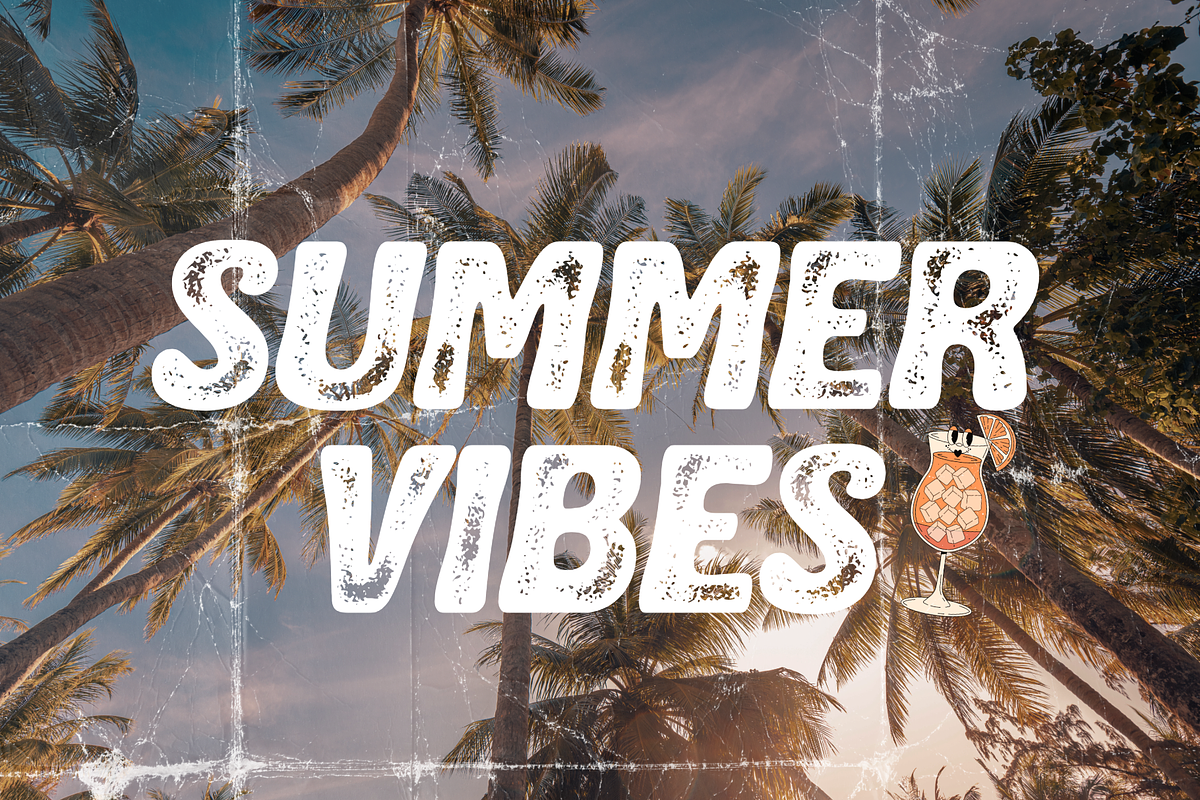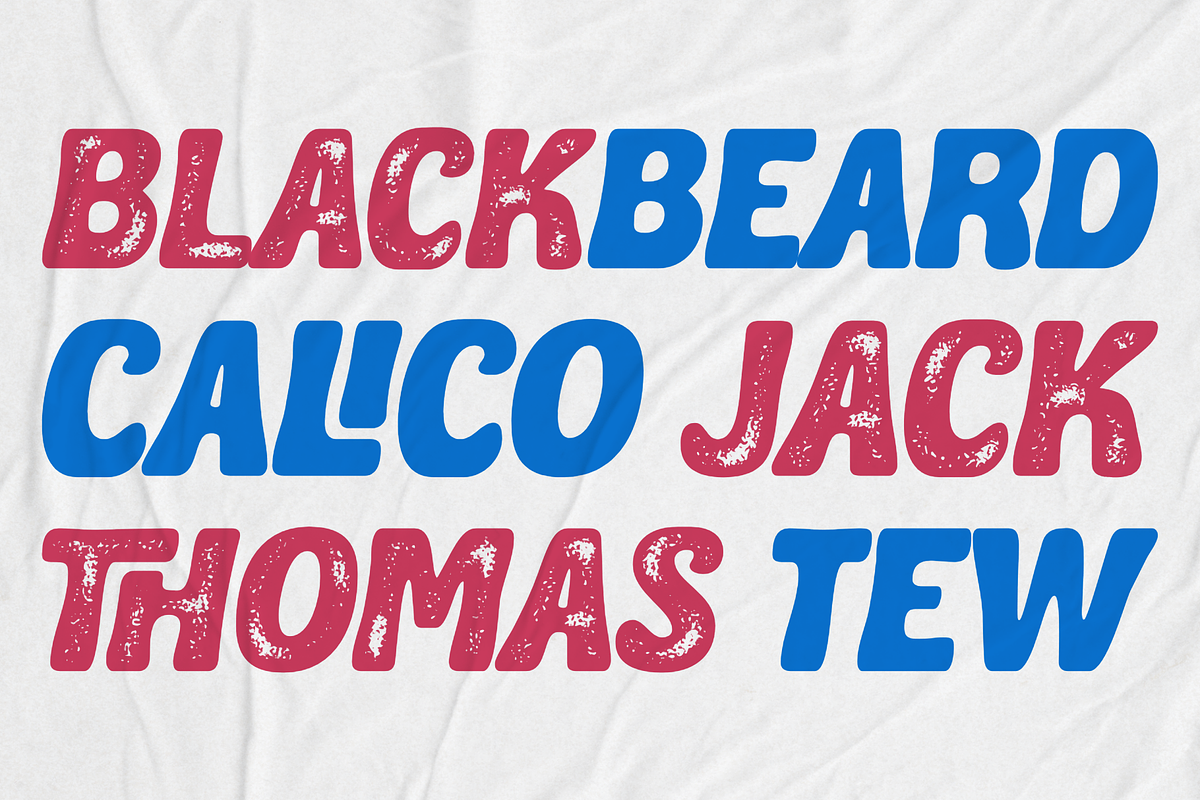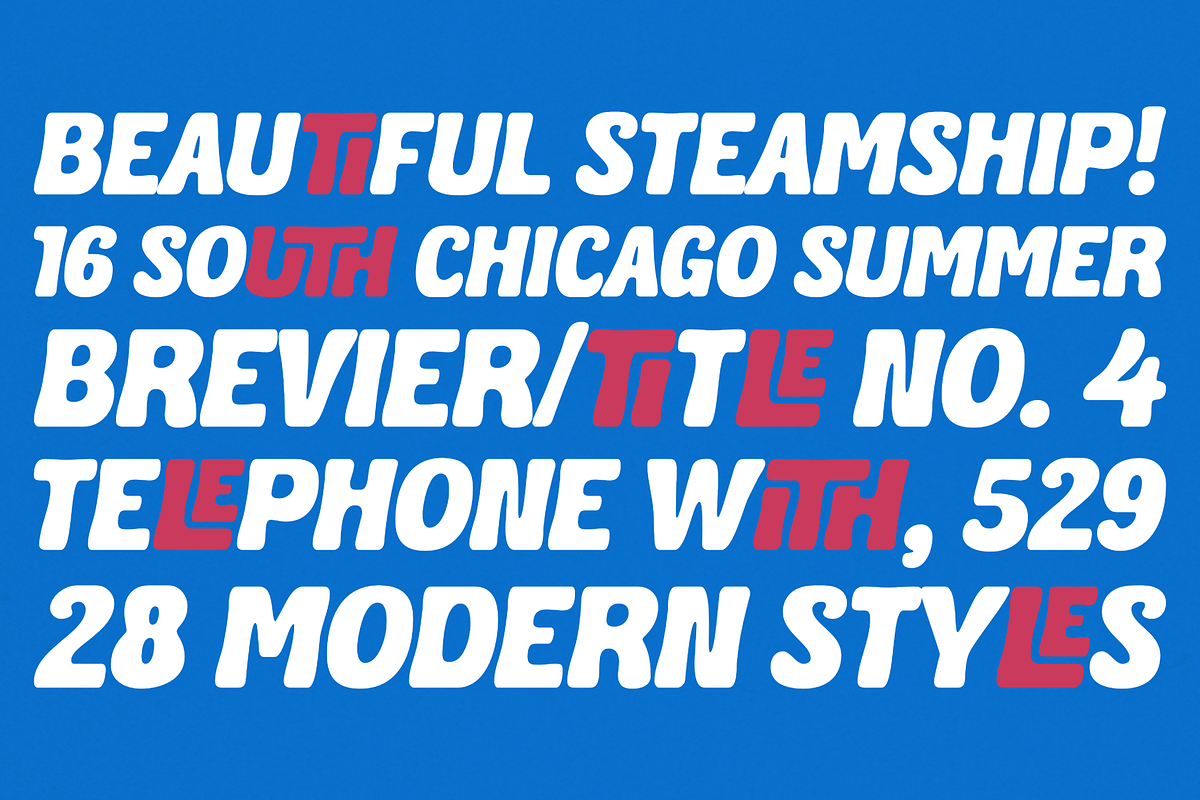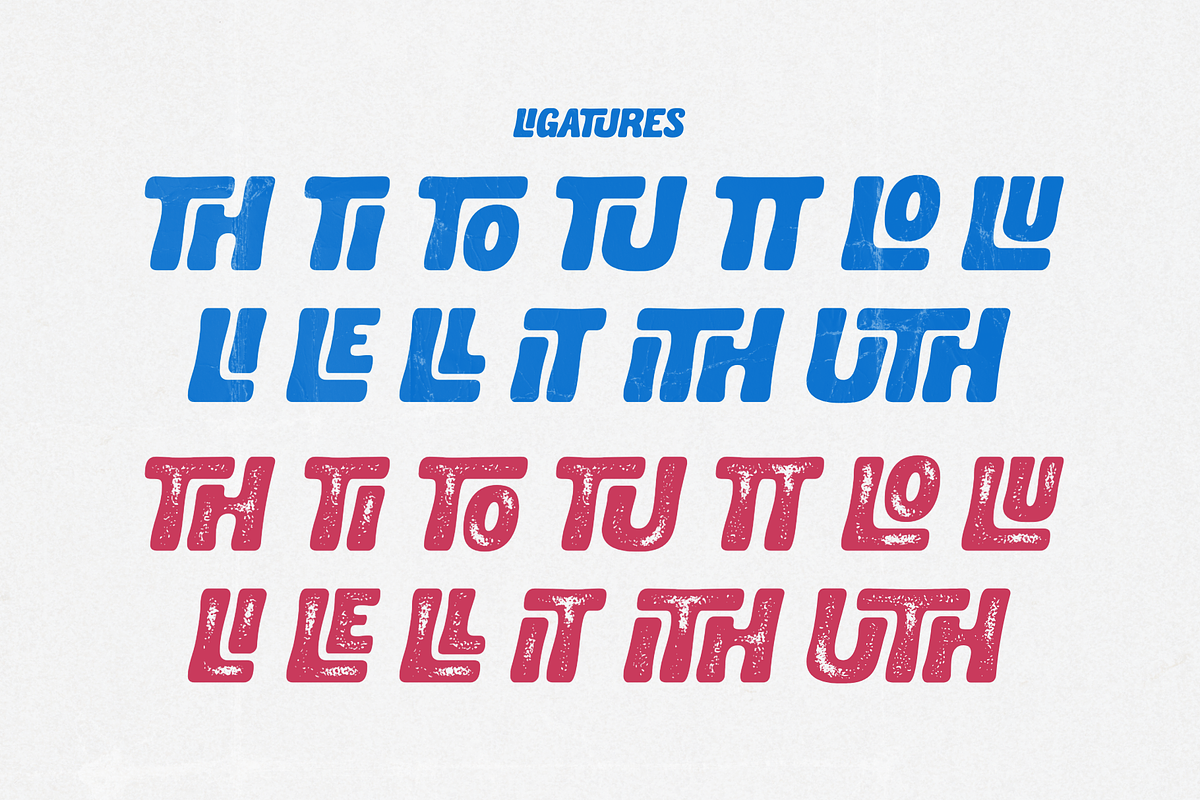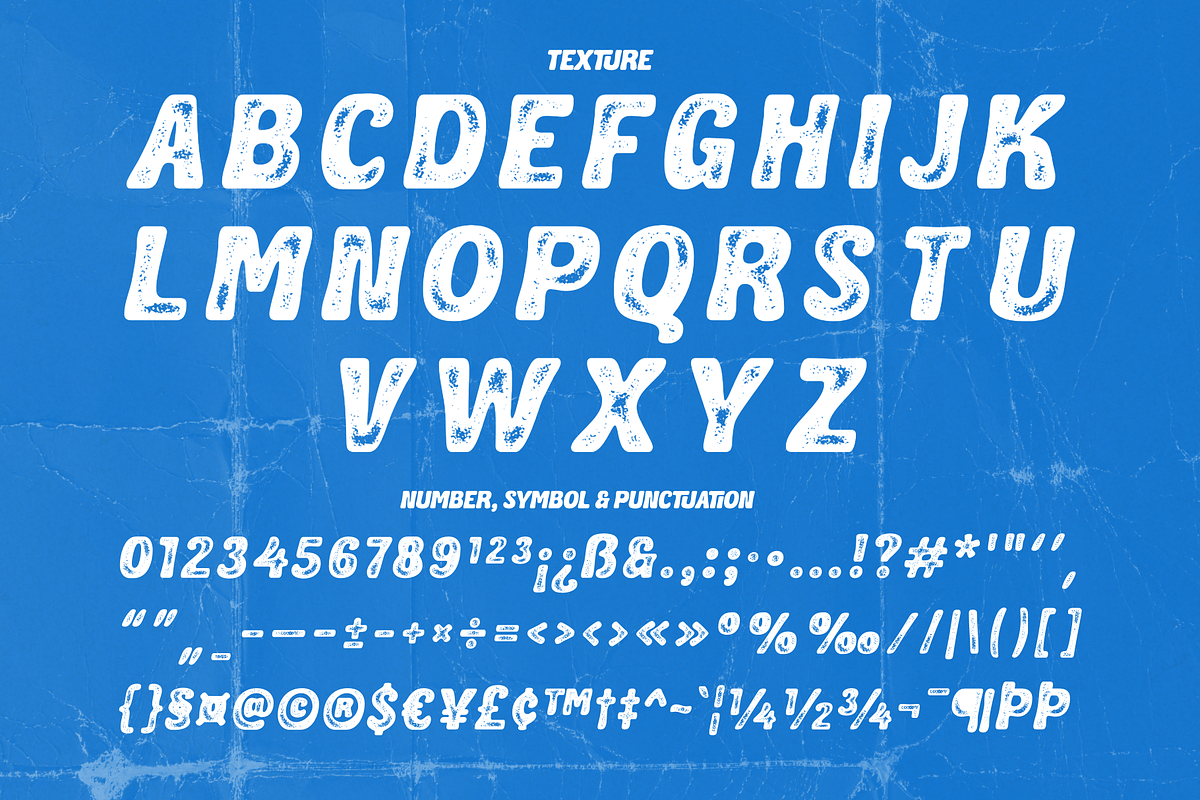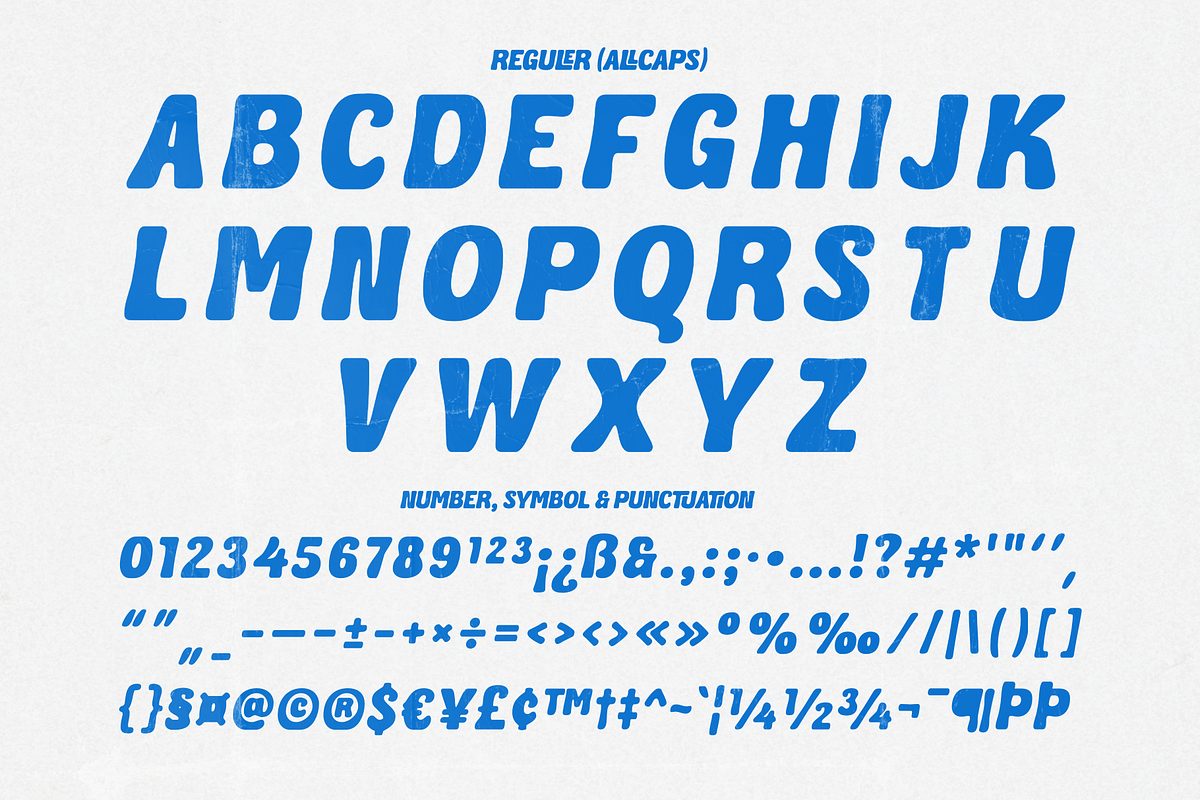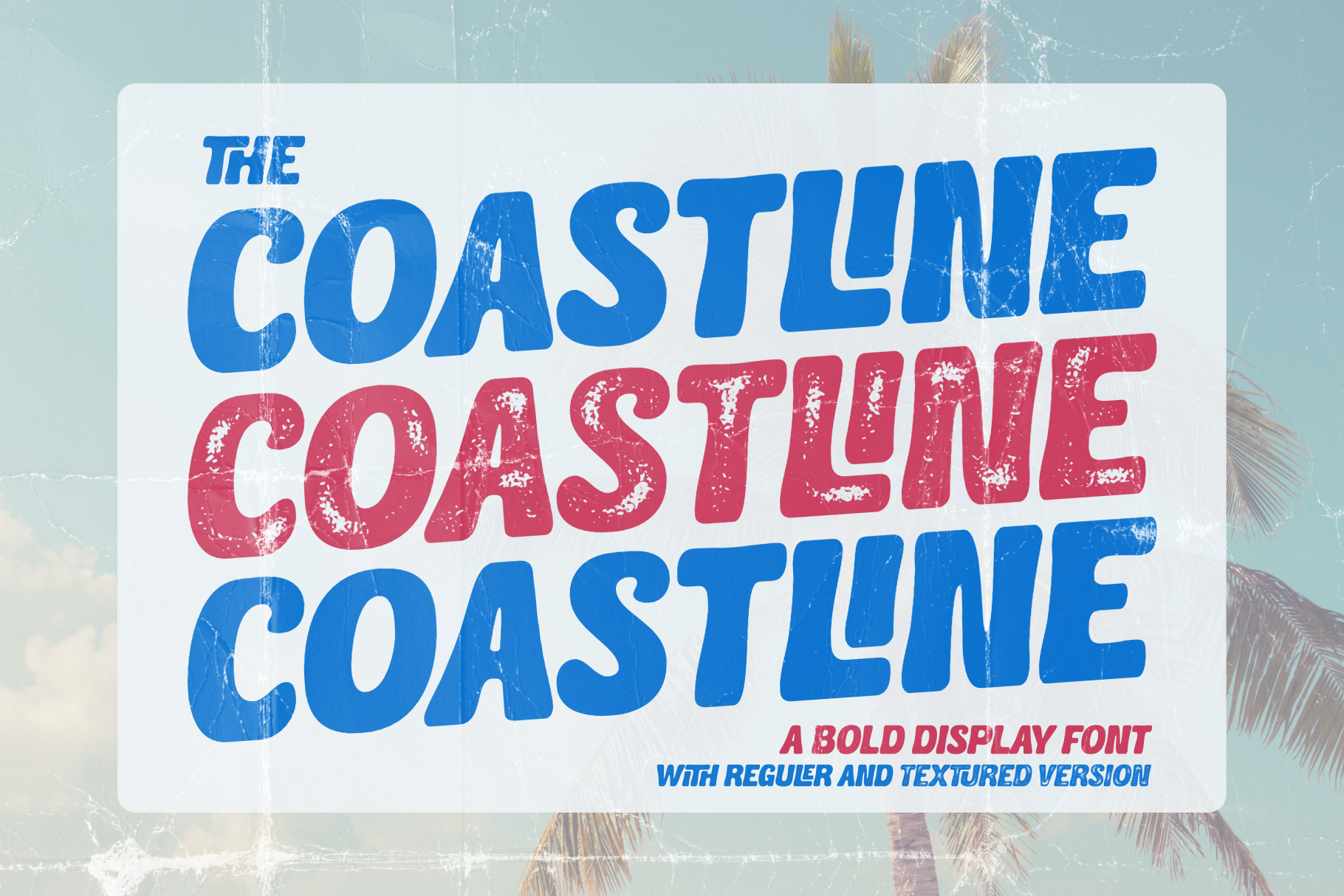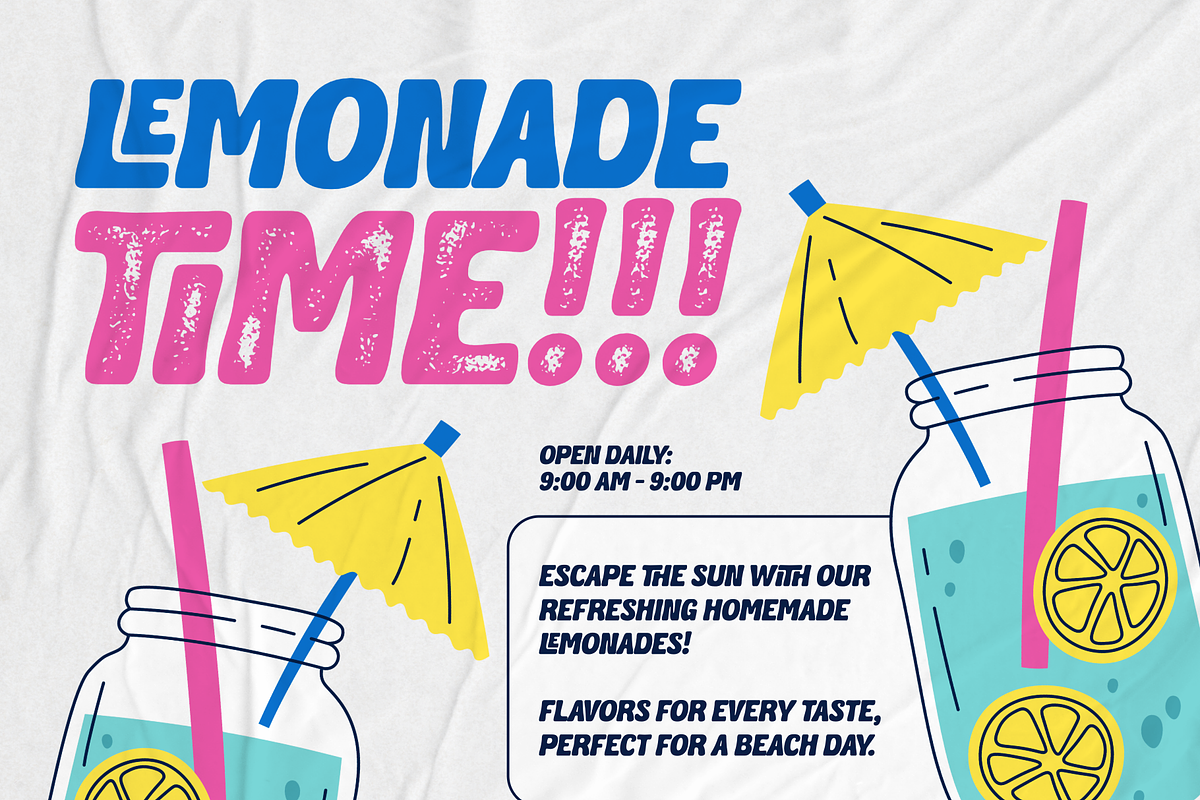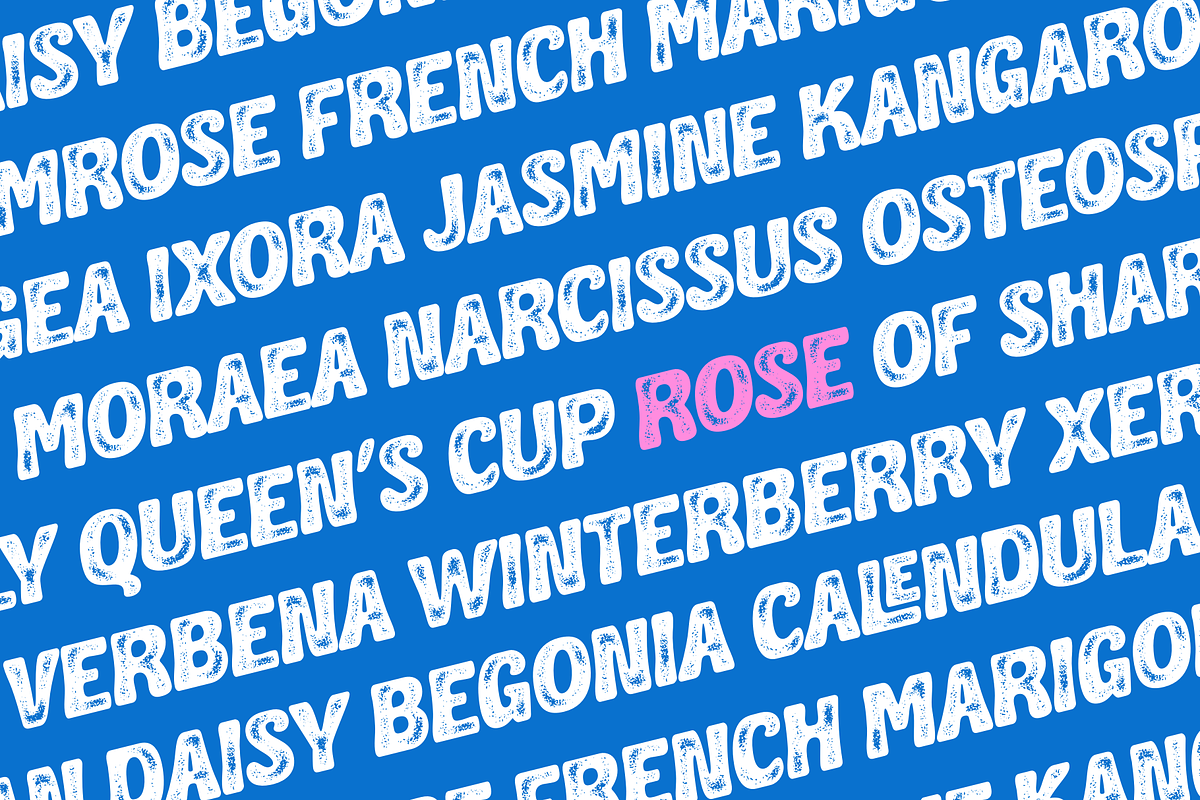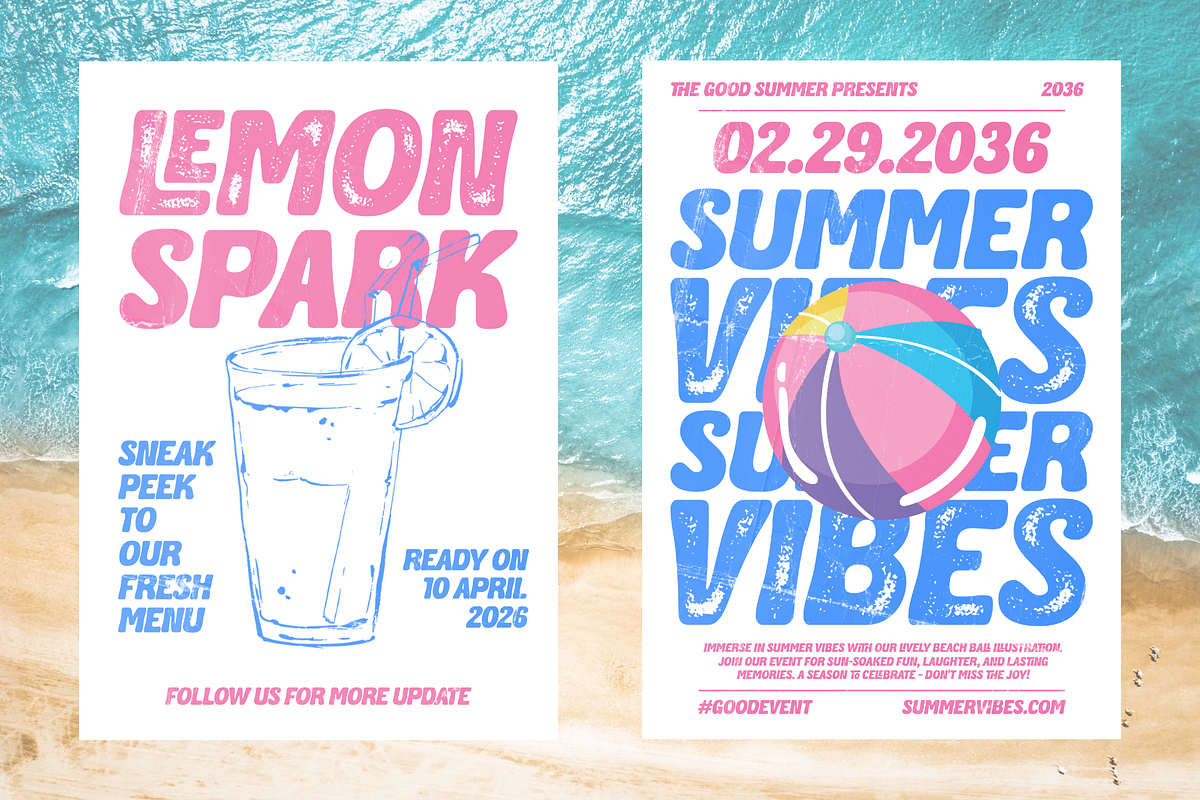
Coastline - A Bold Display Font
Coastline is a bold and carefree display font inspired by sunny beaches, ocean breezes, and retro summer postcards. With its chunky curves and playful energy, this typeface brings a fun, adventurous vibe to any design.
It comes in Regular and Textured styles, giving you the freedom to choose between a clean, solid look or a distressed, sun-faded effect. Perfect for posters, travel branding, surf-themed graphics, packaging, social media titles, logos, and anything that needs a bright, summer spirit.
Let Coastline bring that warm holiday feeling straight into your creative projects.
- Allcaps
- Number, symbol, and punctuation
- Textured Version